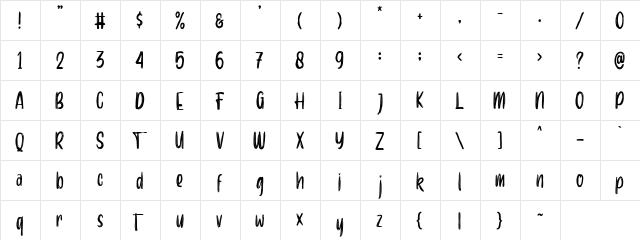
Aerobrush Regular Font Preview
Aerobrush Regular
Aerobrush Regular Font Details
Design Context for Aerobrush Typeface
Aerobrush brings a calligraphic fluidity to the page — its connecting strokes and expressive curves give it an unmistakably human quality.